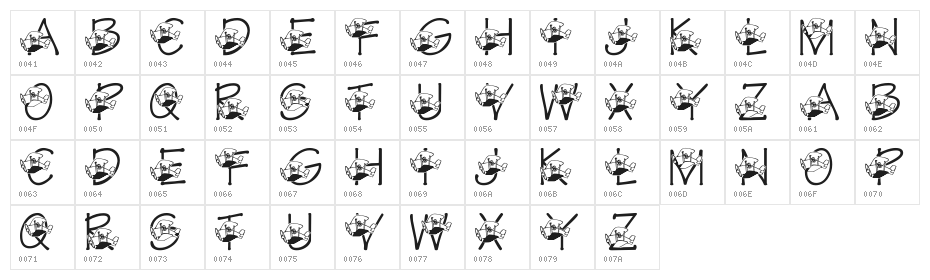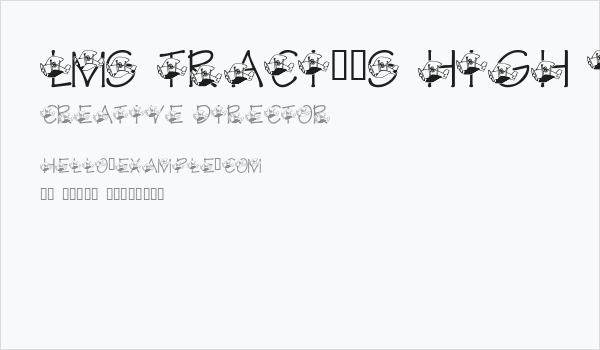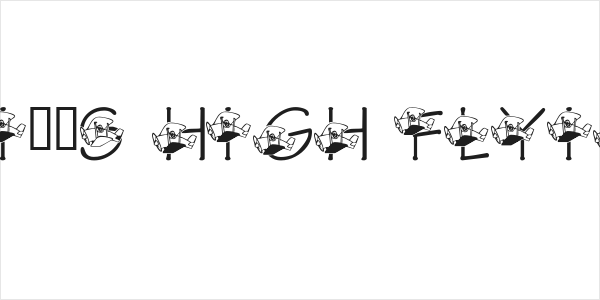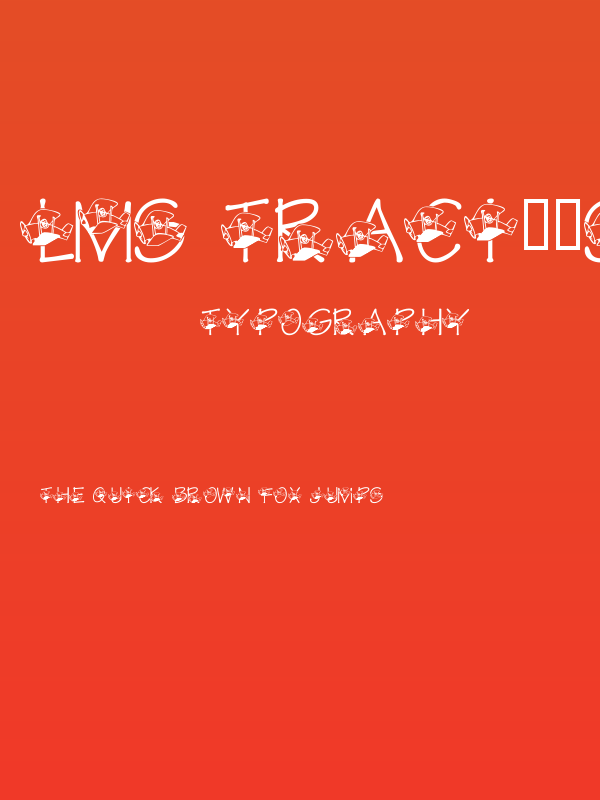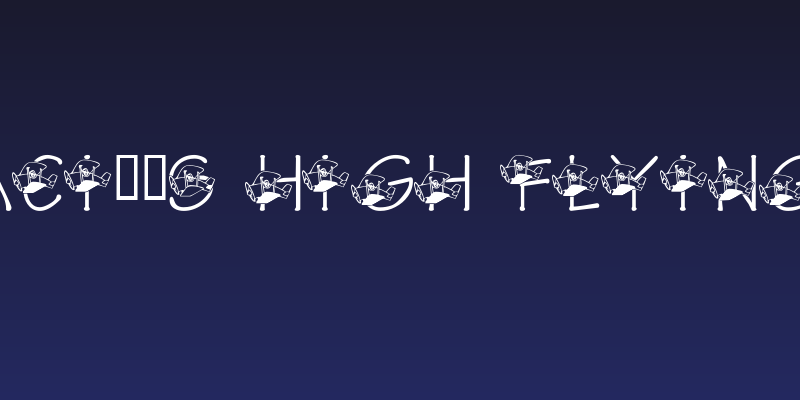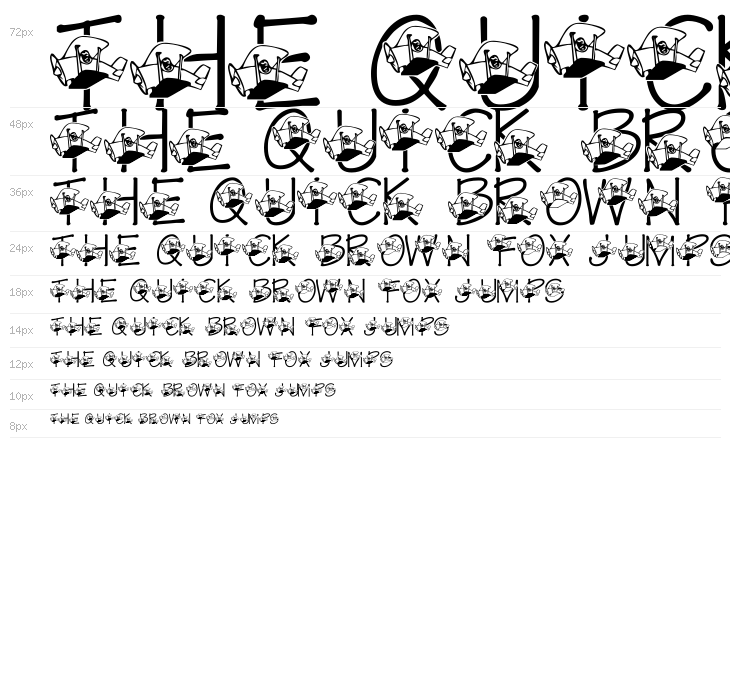
LMS Traci's High Flying Hubby Font
LMS Traci's High Flying Hubby Description
This whimsical and playful font features a unique design where each letter is integrated with a cartoonish airplane motif. The characters are bold and have a hand-drawn quality, giving them a lively and dynamic appearance. The font combines elements of both decorative and display styles, making it ideal for projects that require a fun and engaging visual impact. The letters are well-spaced, ensuring readability despite the intricate design. This font is perfect for children's materials, themed events, or any creative project that aims to capture attention with its distinctive and entertaining style.
| Proposed Projects | Ideal for children's books, themed party invitations, playful branding, and educational materials. |